1. Introduction: Why Fonts Matter in Poster Design
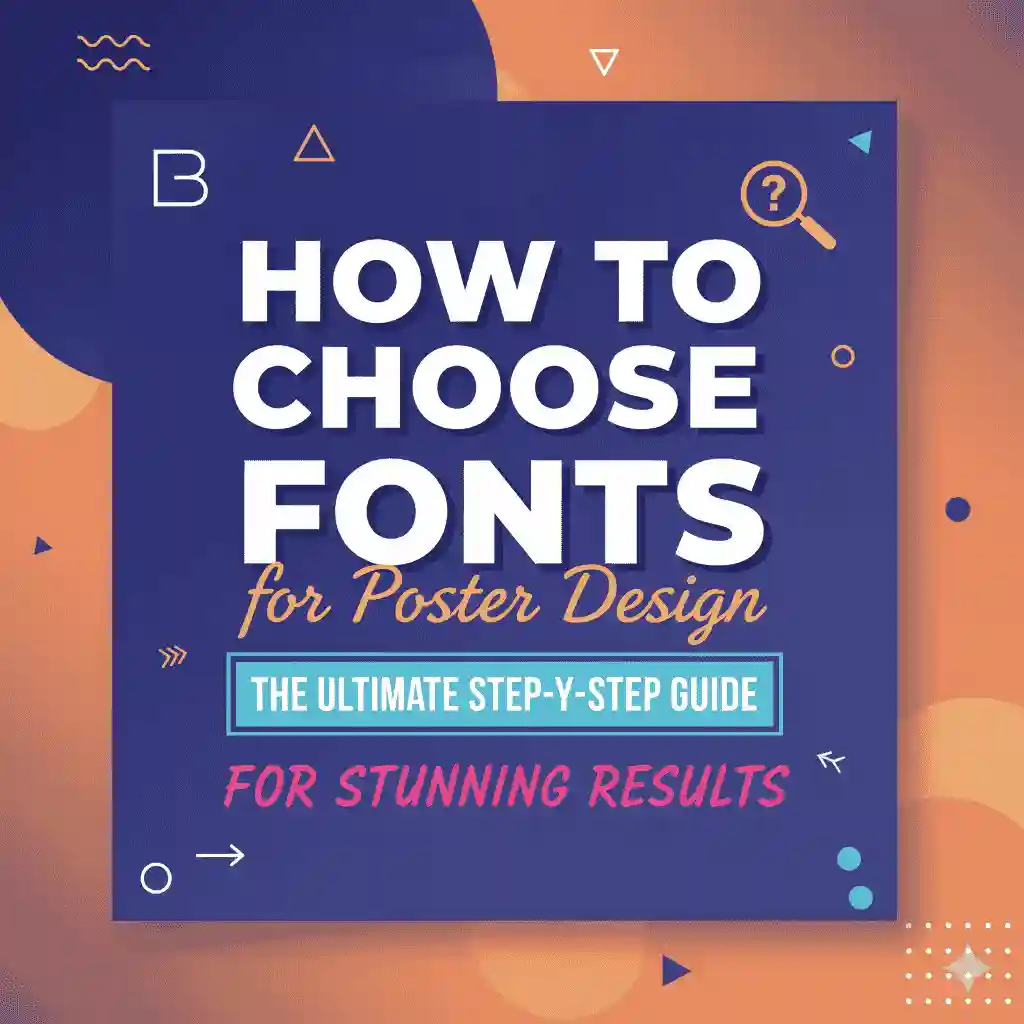
When creating a poster, the font choice is just as important as the visuals and colors. Fonts are not just letters — they carry personality, tone, and impact. The right font can grab attention, communicate a message instantly, and make your poster memorable. The wrong font, however, can confuse the audience or weaken your design.
This guide will help you understand how to choose fonts for poster design and show you professional fonts you can use right away.
2. Understanding the Role of Fonts in Posters
Fonts in poster design act as visual communicators. They determine whether your audience perceives your poster as bold, elegant, playful, or serious. According to Adobe, fonts can even influence the emotional reaction of viewers.
Think of fonts as the “voice” of your poster:
- A bold sans serif font = strong, modern, attention-grabbing
- A script font = elegant, creative, artistic
- A serif font = professional, traditional, trustworthy
3. Key Principles for Choosing Fonts for Poster Design
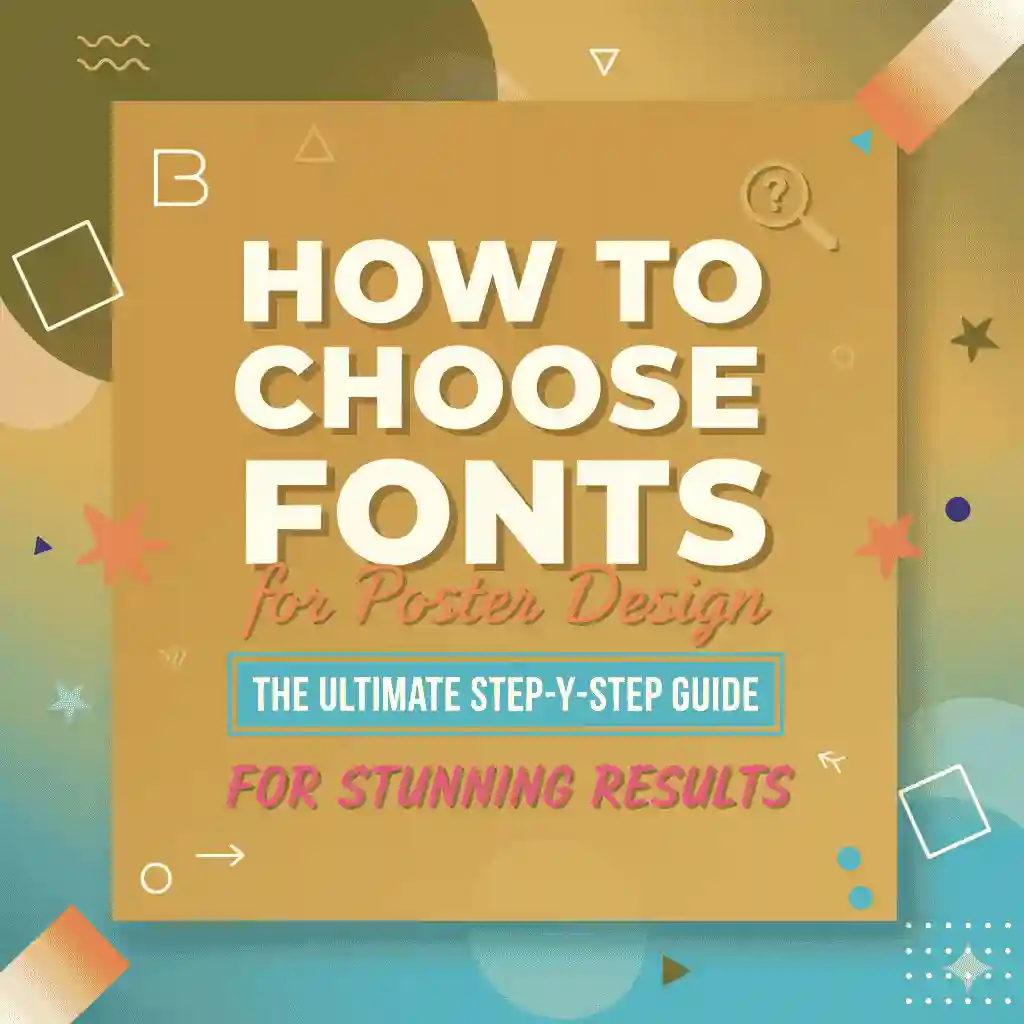
✔ Readability & Legibility
Your poster should be readable even from a distance. Always test whether your chosen font remains clear in large sizes and in different lighting conditions.
✔ Font Personality & Tone
Match the font to your message. For example:
- A concert poster might use bold, edgy display fonts.
- A fashion poster might use sleek serif or script fonts.
- A corporate event poster works better with modern sans serif fonts.
✔ Font Pairing & Contrast
Don’t rely on one font alone. Use font pairing to create contrast — for example, a bold sans serif for the headline and a clean serif for the body text.
✔ Hierarchy & Visual Impact
Hierarchy ensures that the audience first sees the most important element (headline), then supporting details (date, location, contact). Using font size, weight, and style helps establish this hierarchy.
4. Best Font Styles for Poster Design
➤ Sans Serif Fonts
Clean and modern, sans serif fonts are versatile for headlines and body text. Example: Montserrat or TheRightAttitude from EdricStudio.
➤ Serif Fonts
Serifs add elegance and professionalism. Great for luxury posters or cultural events. Example: Times New Roman or Bracella Serif from EdricStudio.
➤ Display & Decorative Fonts
Perfect for grabbing attention. Use sparingly for titles or main visuals. Example: Wheelie Track by EdricStudio.
➤ Script Fonts
Stylish and expressive, script fonts are excellent for creative or artistic posters. Example: Vlorens Flower Font.
5. Common Mistakes to Avoid in Poster Typography
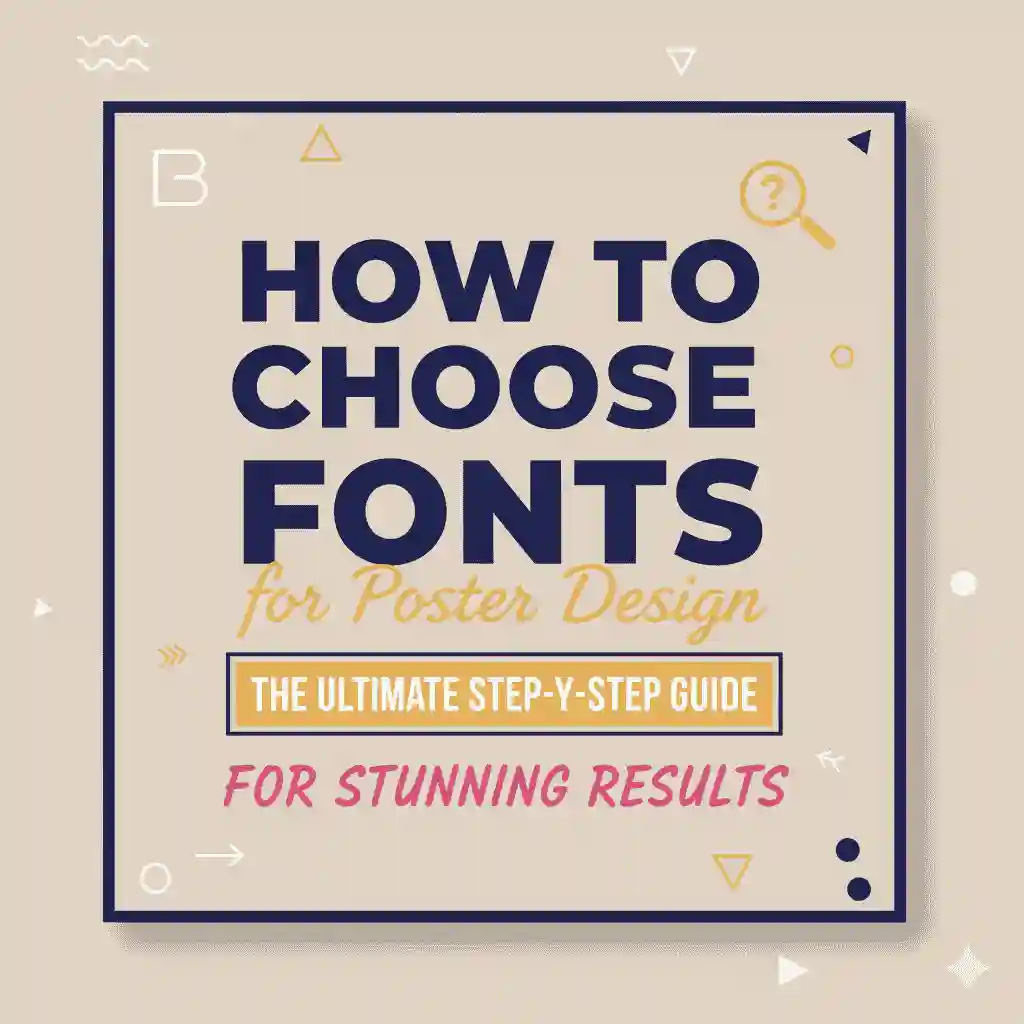
- ❌ Using too many fonts (stick to max 2–3).
- ❌ Choosing decorative fonts for body text.
- ❌ Poor color contrast between text and background.
- ❌ Ignoring spacing and alignment.
6. Recommended Fonts for Poster Design (With Examples)
Here are a few ready-to-use professional fonts from EdricStudio that are perfect for posters:
- GLIFORD : Retro BOLD – bold and striking for attention-grabbing titles.
- Allcan Modern Display Font – clean, versatile sans serif for modern posters.
- Bro & Sis Display Brush Font – dynamic brush style for creative posters.
- Lavenia Danica Elegant Font – elegant serif for luxury posters.
8. Conclusion
Knowing how to choose fonts for poster design can completely transform your project. By focusing on readability, tone, and hierarchy, you can create posters that are not only visually stunning but also effective in communication.